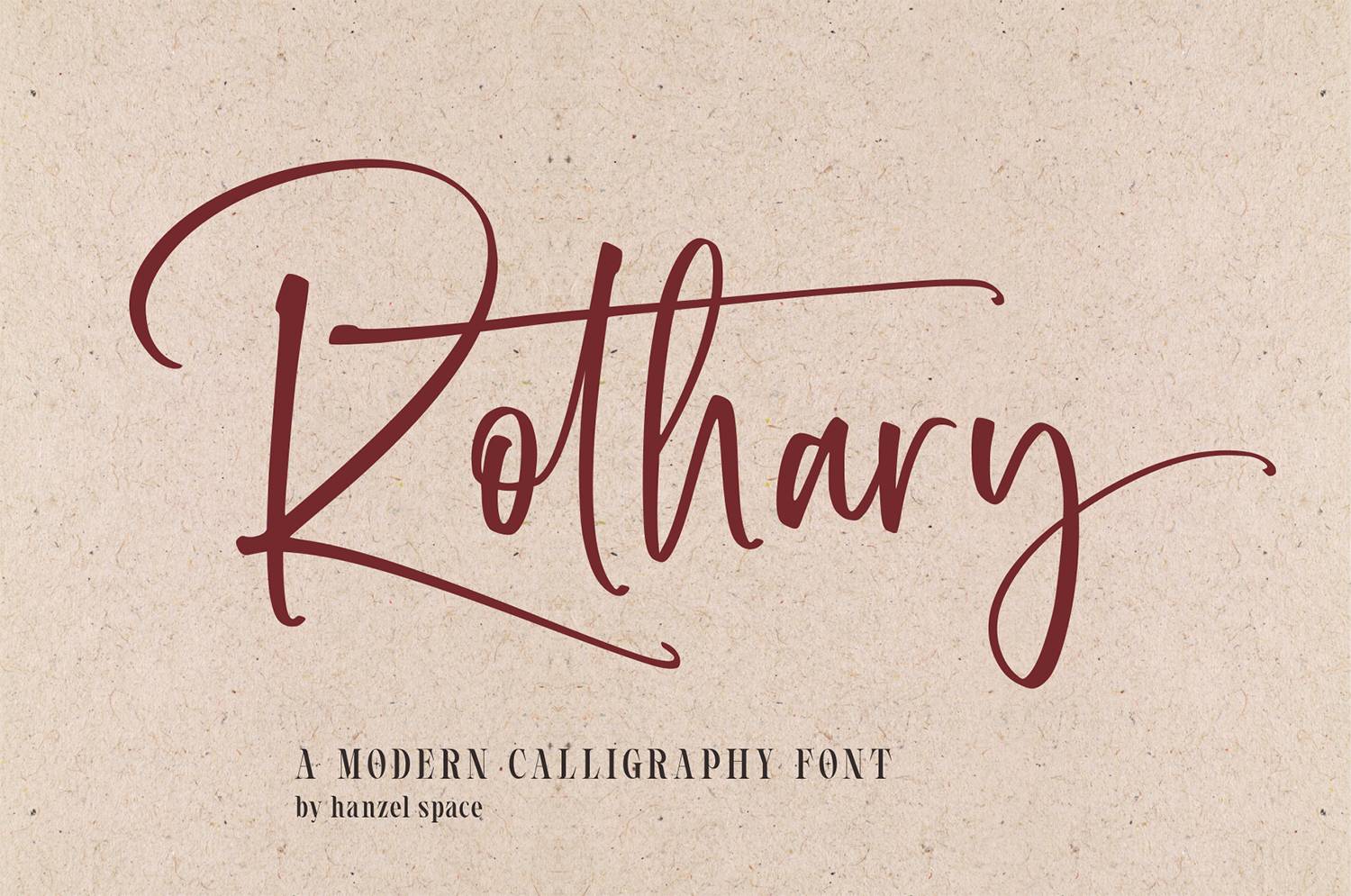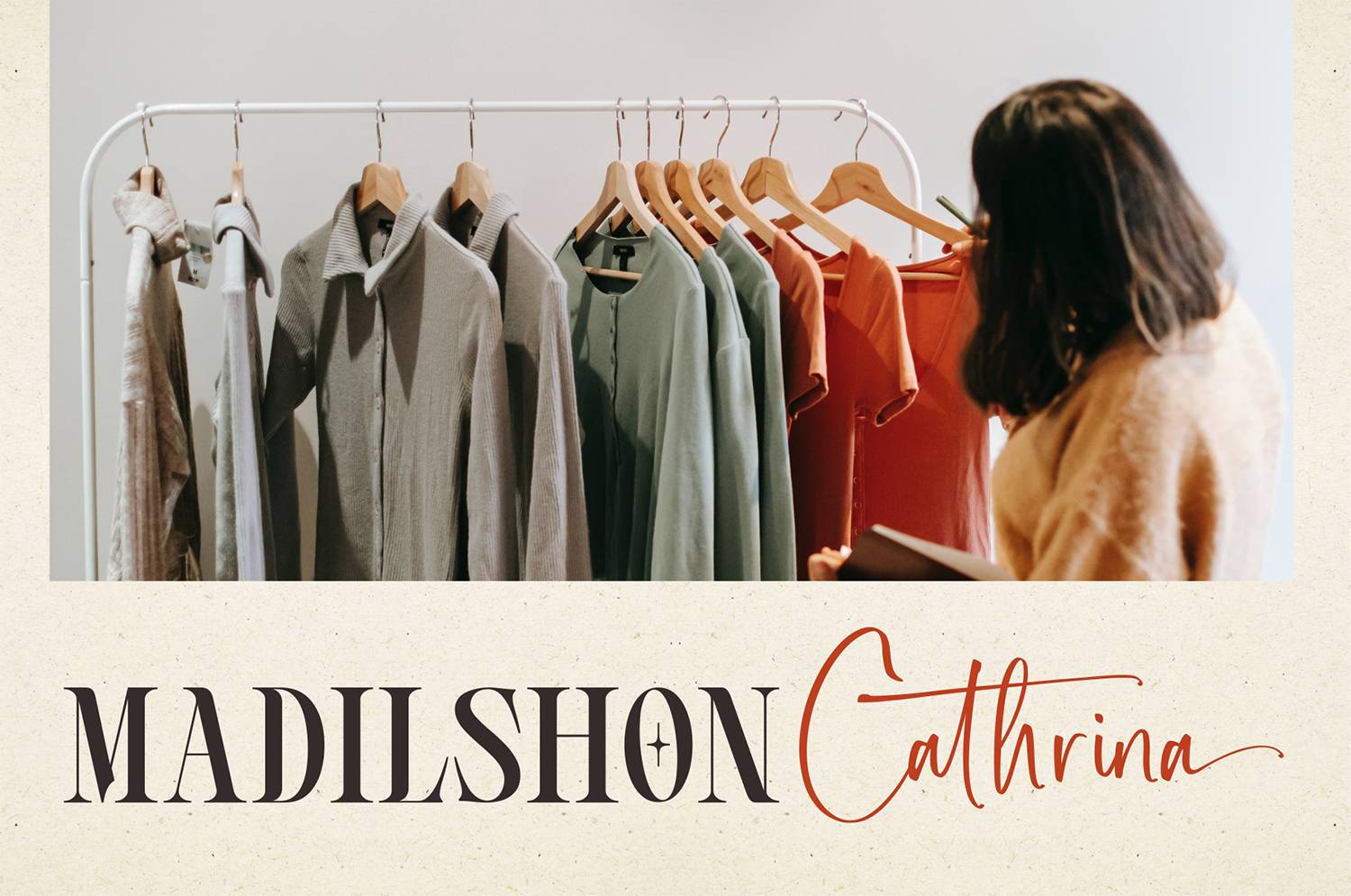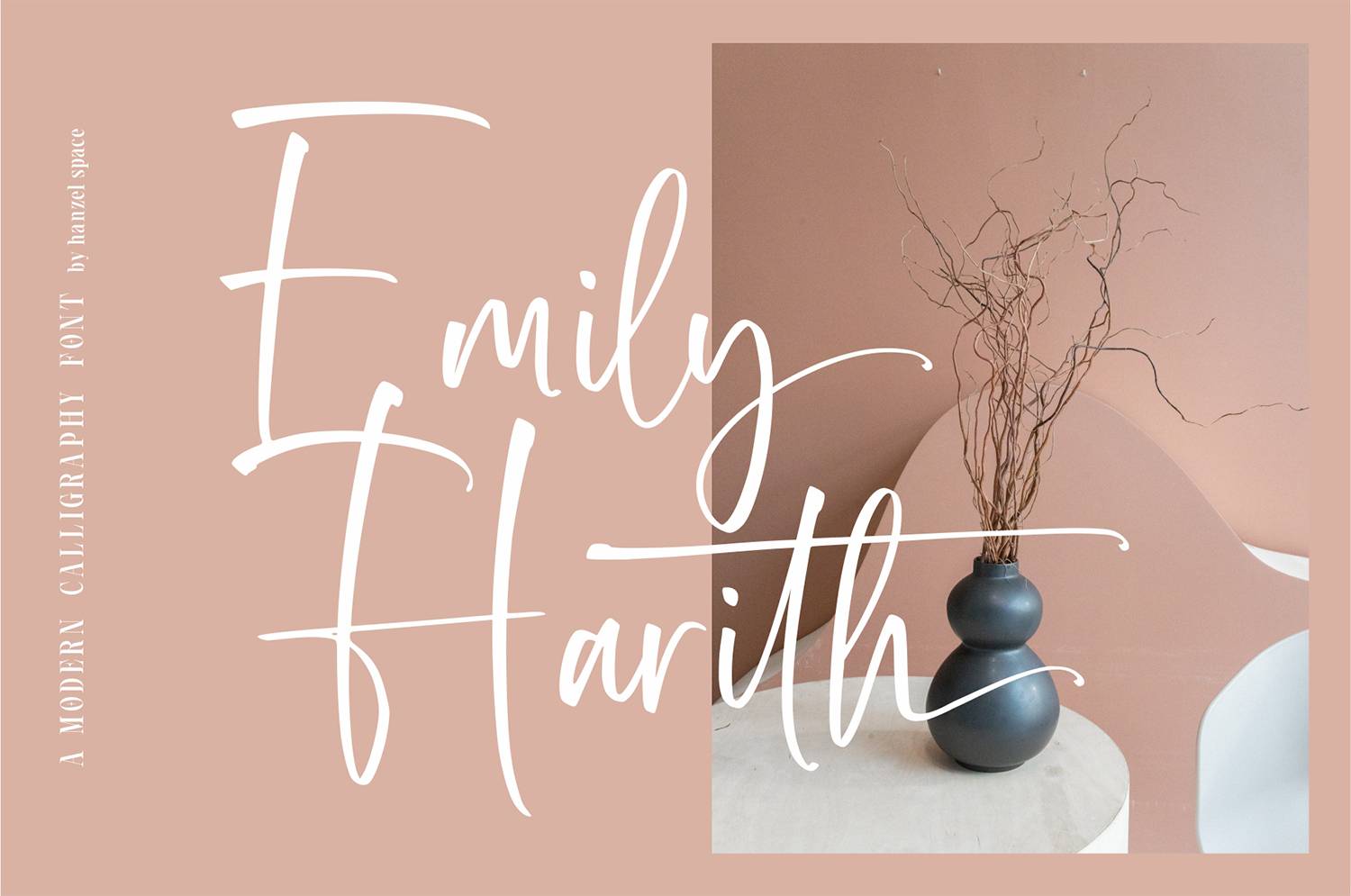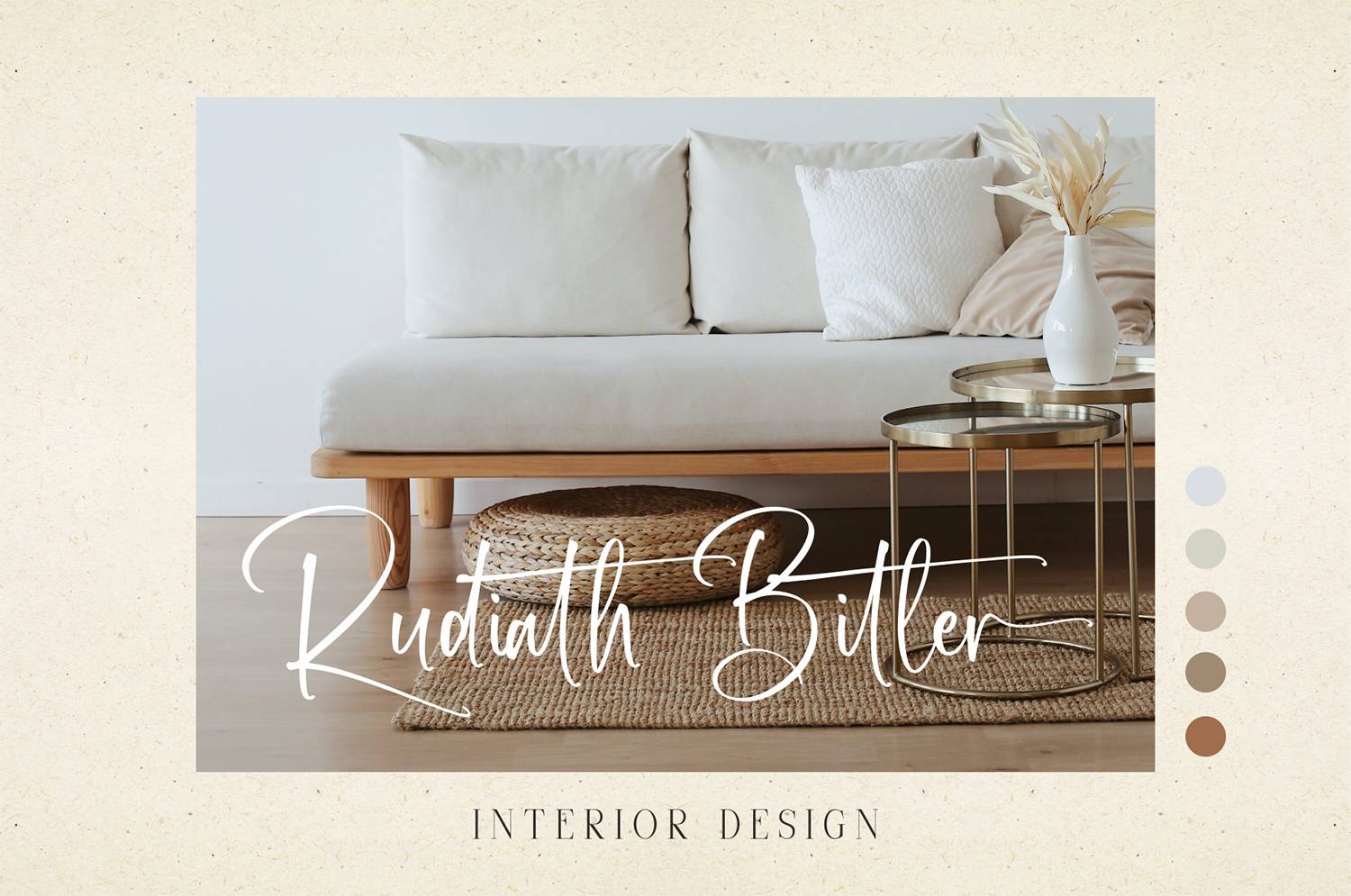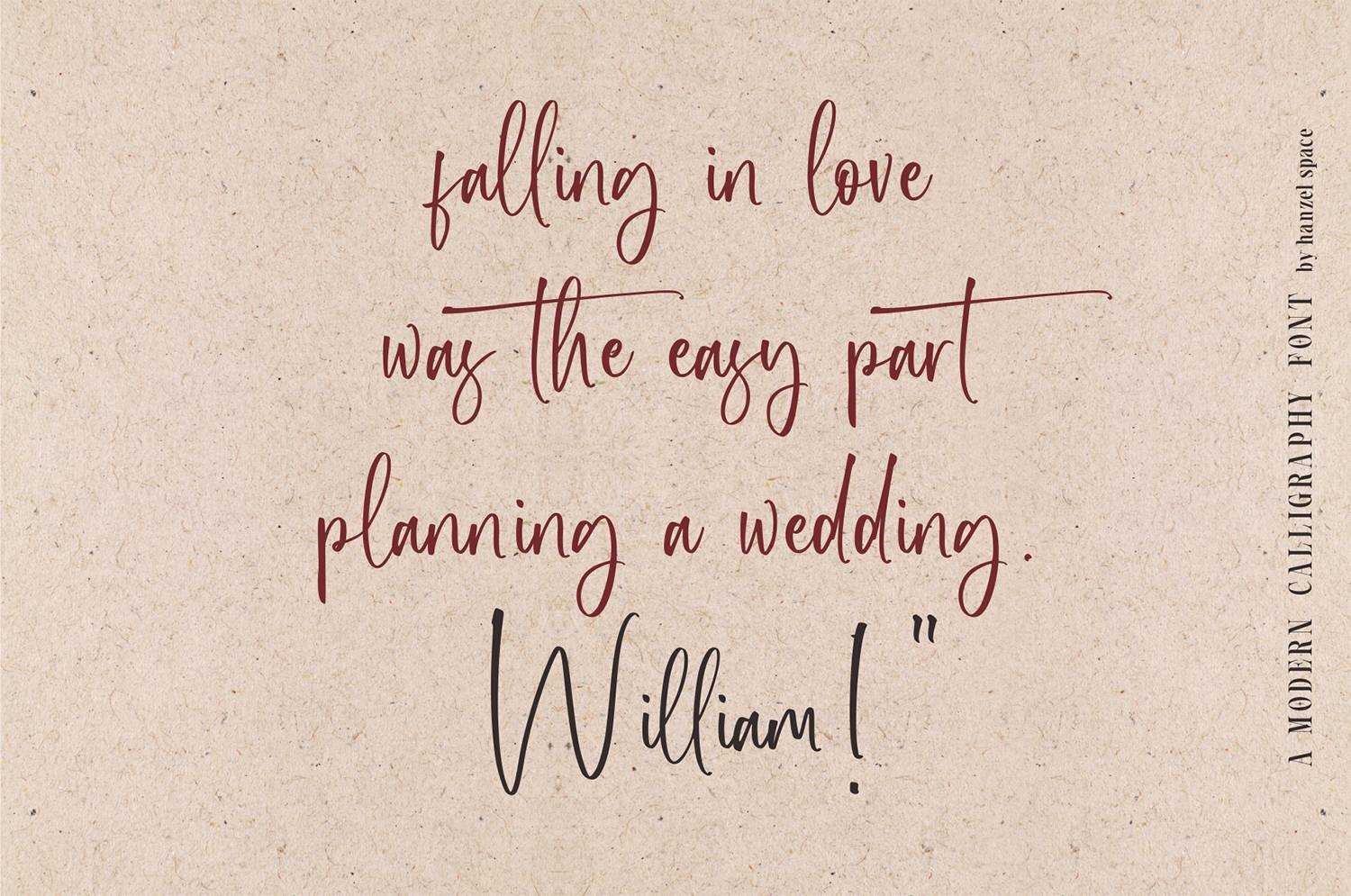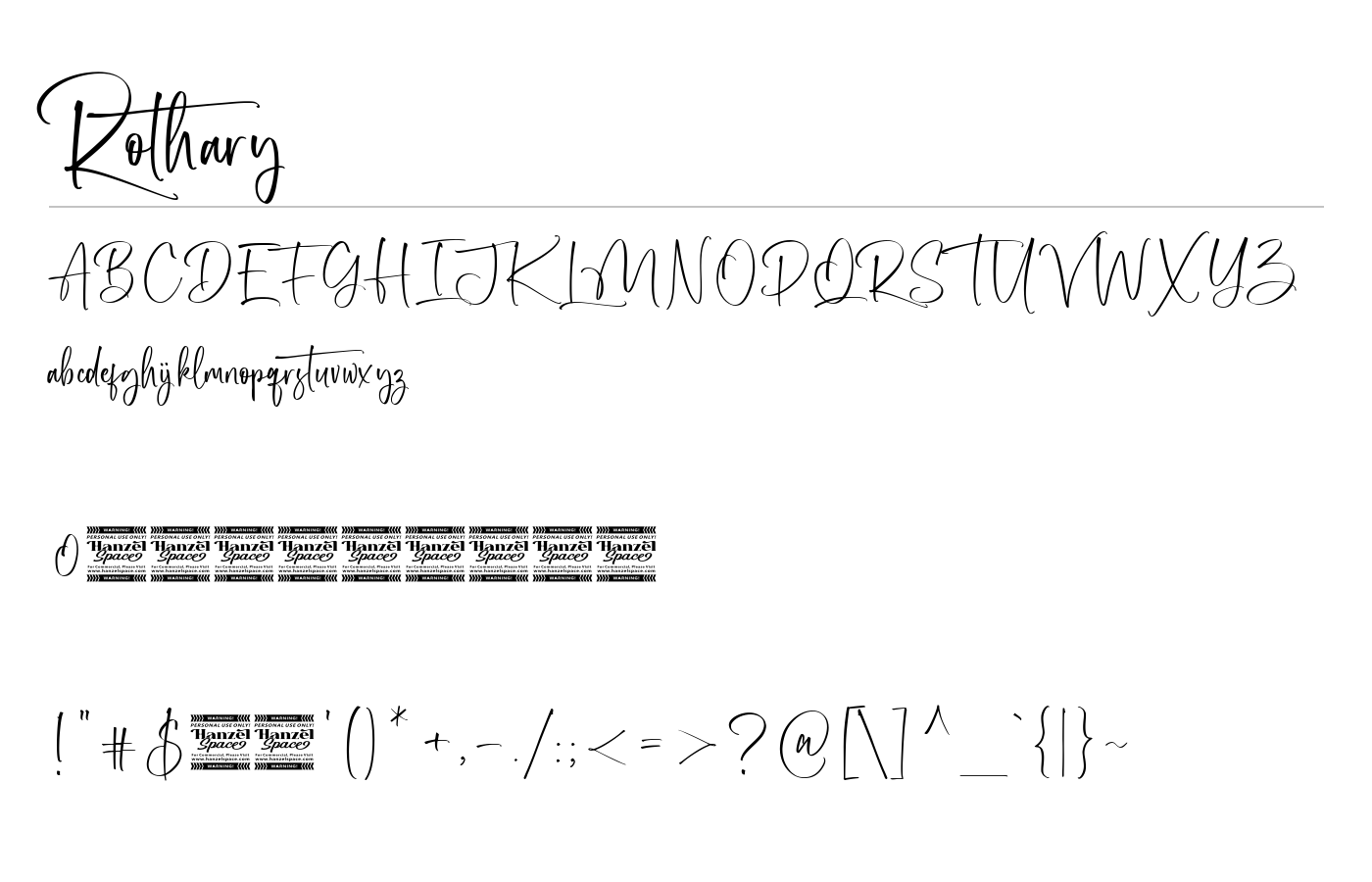
Rothary is a delicate, handwritten script font with a slim, elegant stroke that exudes a personal and artistic touch. Its tall, slightly whimsical letterforms with flowing curves make it perfect for projects seeking a refined yet approachable style, such as invitations, branding, and creative headlines. This font works beautifully where a stylish, handcrafted feel is desired, adding sophistication without appearing too formal.
Rothary Font
About Rothary Font
| Font family | Rothary Font |
| Designer | Hanief Farandi |